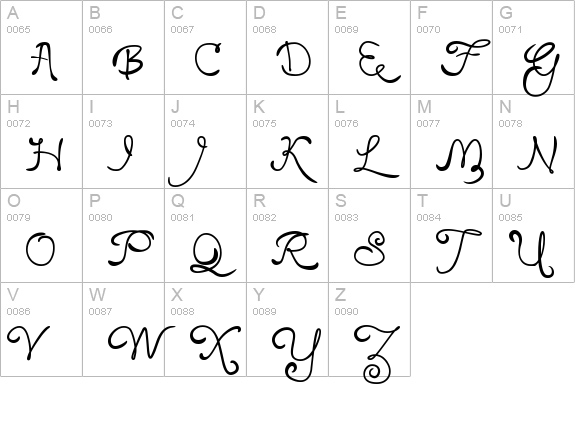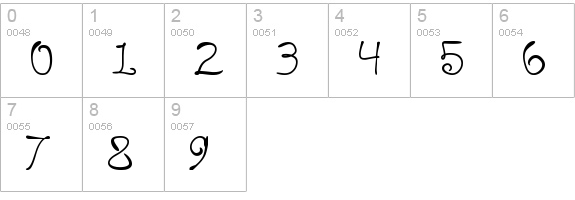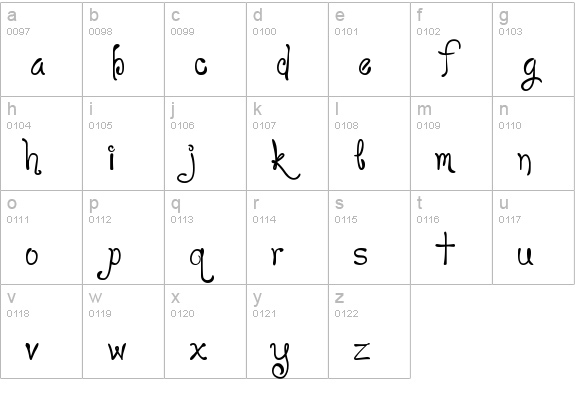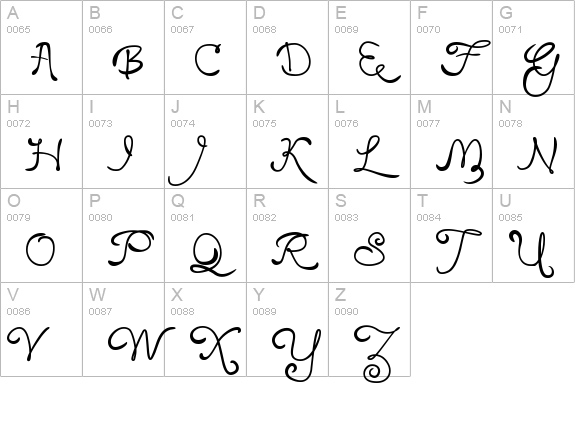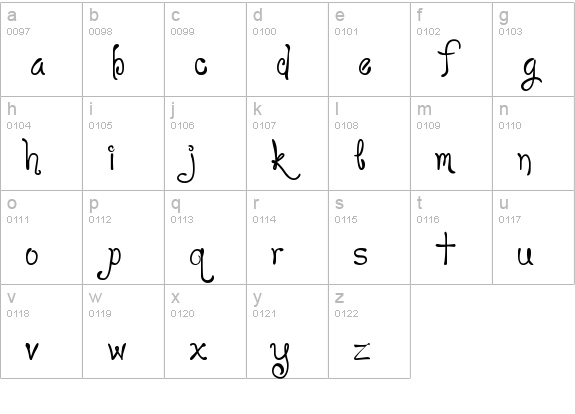
Loyal Fame Font Details
Loyal Fame font is a timeless and elegant typeface that exudes sophistication and charm. Its graceful curves and precise lines make it perfect for a wide range of design projects, from invitations to branding to packaging. The font carries a sense of prestige and class, making it an ideal choice for projects that require a touch of luxury. What sets Loyal Fame font apart is not only its stunning design but also its accessibility. This exquisite font is freely available to download at FontsMarket.com, allowing designers and creatives to add a touch of elegance to their work without any cost. With Loyal Fame font, you can elevate your designs with a touch of glamour and sophistication, making a lasting impression on your audience.